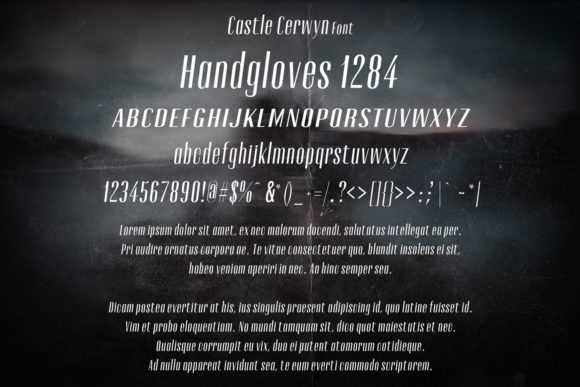
Introducing Castle Cerwyn Font: The Ultimate Sans Serif for Modern Designs
In the world of typography, a font can make or break a design. It’s the foundation upon which the entire visual identity is built. For designers and crafters, finding the perfect font can be a daunting task. However, if you’re looking for a typeface that embodies elegance, simplicity, and versatility, look no further than Castle Cerwyn Font.
What is Castle Cerwyn Font?
Castle Cerwyn Font is a minimal, yet elegant sans serif font that has been carefully crafted to meet the demands of modern design. Its neat and simple style makes it an ideal choice for a wide variety of projects, from branding and advertising to packaging and digital media.
Key Features of Castle Cerwyn Font
- Minimalist Design: Castle Cerwyn Font boasts a clean and minimalist design that ensures your message takes center stage.
- Elegant Aesthetic: The font’s elegant aesthetic makes it perfect for high-end branding, luxury packaging, and sophisticated digital media.
- Sans Serif Style: The sans serif style of Castle Cerwyn Font ensures that your text is clear, readable, and perfect for both digital and print applications.
- Versatility: Whether you’re working on a website, social media graphics, or print materials, Castle Cerwyn Font adapts seamlessly to any design.
Why Choose Castle Cerwyn Font?
With so many fonts available, why should you choose Castle Cerwyn Font for your next project? Here are a few compelling reasons:
- Readability: Castle Cerwyn Font is designed to be highly readable, even at small sizes, making it perfect for body text and captions.
- Flexibility: The font’s simple design allows it to work well with a variety of colors, textures, and patterns.
- Uniqueness: While Castle Cerwyn Font is elegant and minimalist, it also has a unique character that sets it apart from more traditional sans serif fonts.
Use Cases for Castle Cerwyn Font
Castle Cerwyn Font is incredibly versatile and can be used in a variety of design applications, including:
- Branding and Identity: Create a lasting impression with a custom logo or brand identity that incorporates Castle Cerwyn Font.
- Web Design: Use Castle Cerwyn Font as a primary or secondary font for your website to create a clean and modern look.
- Social Media Graphics: Elevate your social media presence with eye-catching graphics that feature Castle Cerwyn Font.
- Packaging Design: Add a touch of elegance to your product packaging with Castle Cerwyn Font.
Tips for Using Castle Cerwyn Font
To get the most out of Castle Cerwyn Font, here are a few tips to keep in mind:
- Experiment with Font Sizes: Don’t be afraid to experiment with different font sizes to create visual hierarchy and emphasis.
- Pair with Other Fonts: Castle Cerwyn Font pairs well with a variety of other fonts, so don’t be afraid to get creative with font combinations.
- Play with Colors and Textures: The simple design of Castle Cerwyn Font makes it the perfect canvas for experimenting with different colors and textures.
In conclusion, Castle Cerwyn Font is a game-changer for designers and crafters looking for a reliable, elegant, and versatile sans serif font. Its minimalist design, elegant aesthetic, and high readability make it the perfect choice for a wide range of design applications. Whether you’re working on a branding project, website, or social media graphics, Castle Cerwyn Font is sure to become your go-to font.